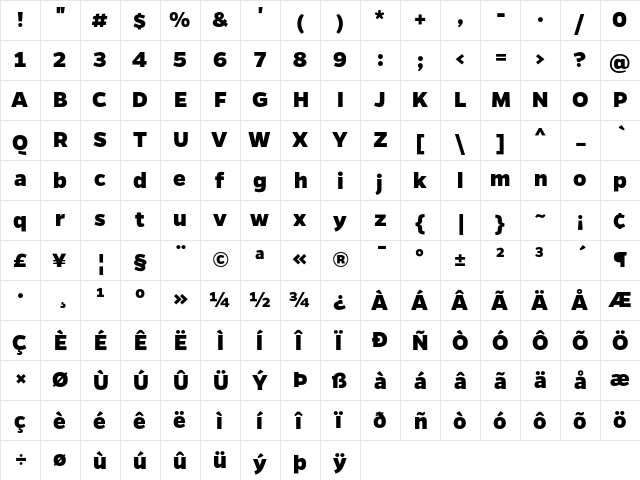
Gentona ExtraBold Regular
| Foundry | Rene Bieder |
| Designer | Rene Bieder |
Design Context for Gentona ExtraBold Typeface
Gentona ExtraBold offers clean, dependable letterforms without strong stylistic allegiance, making it a practical choice for designers who need flexibility. Its bold stroke weight gives it real presence on the page.